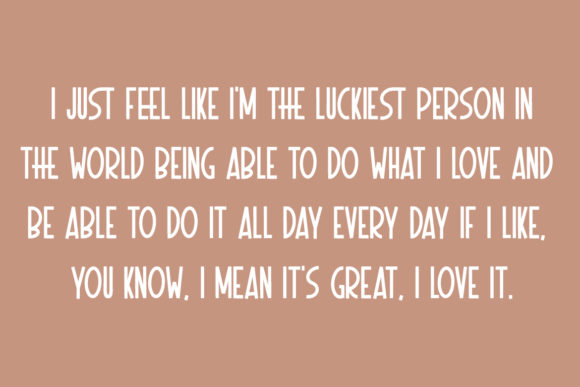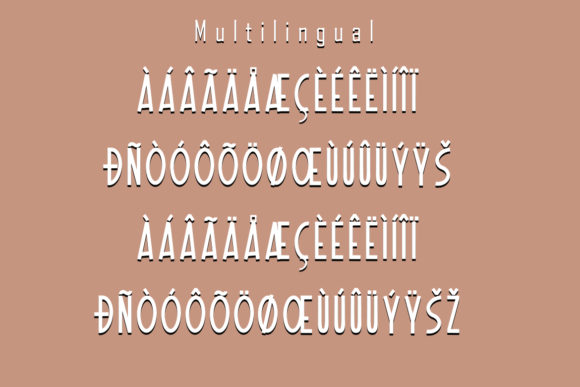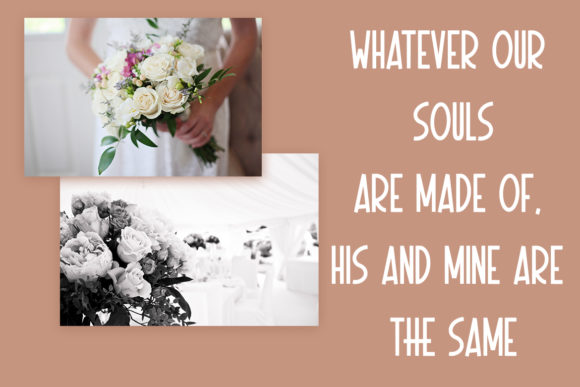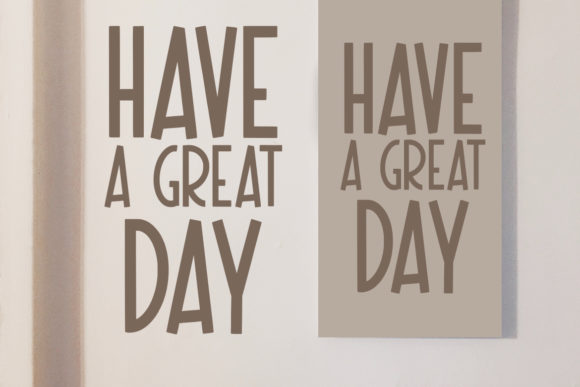
Heroes Font Font
Heroes is a modern and daring sans serif font. It has a classy and elegant look that can be used for logos, branding, invitations, stationery, wedding designs, social media posts, and much more!